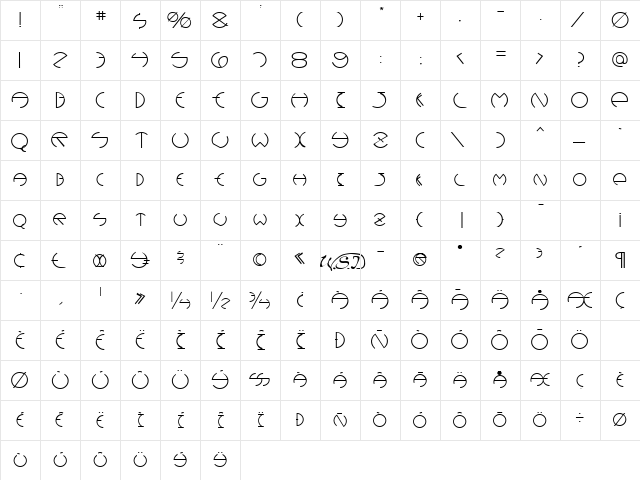
Debevic Regular
Design Context for Debevic Typeface
Debevic is a composed and adaptable typeface that performs quietly and consistently across a wide range of design contexts.